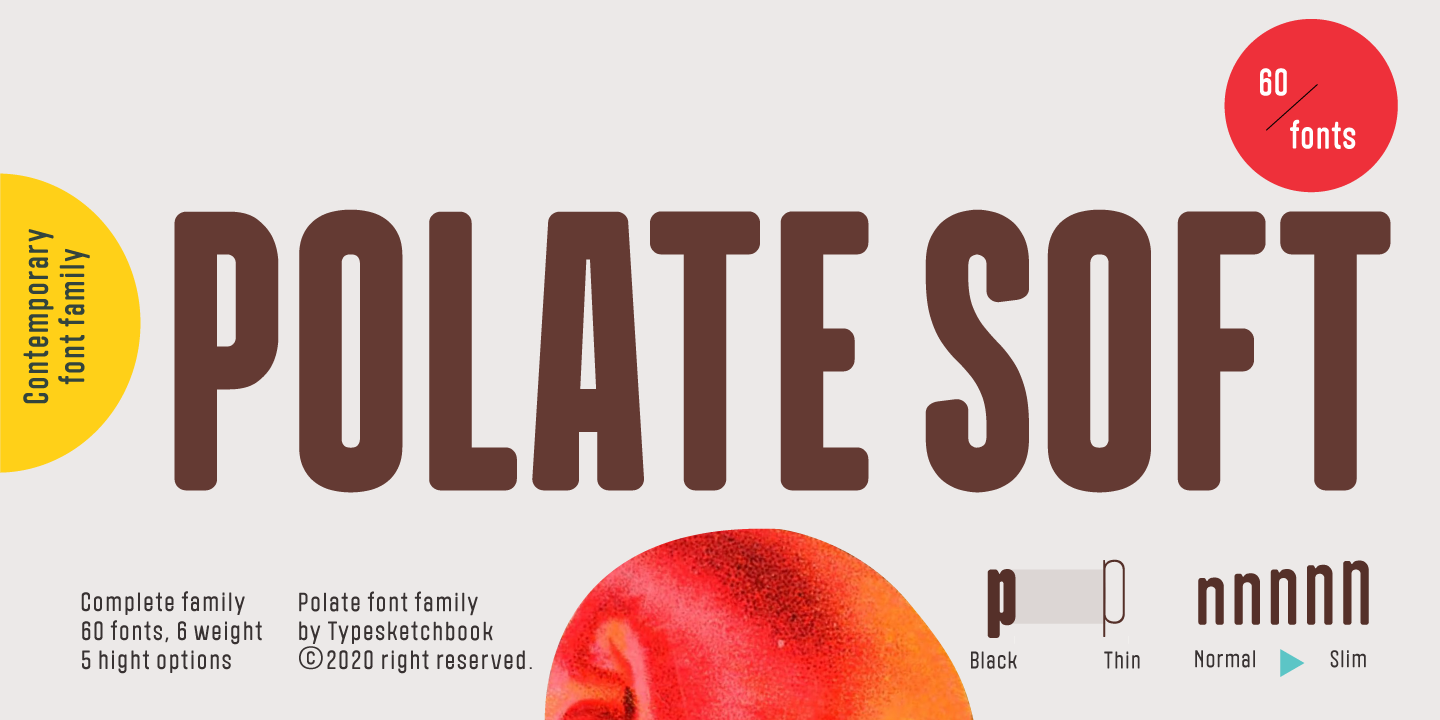
Polate Soft Font is perfect for modern branding projects, website headers, mobile app interfaces, corporate presentations, business cards, magazine layouts, poster designs, social media graphics, digital marketing materials, and any projects that require a clean, professional appearance.
What makes Polate Soft Font exciting is its contemporary soft-edge design that provides exceptional readability while maintaining a sleek, modern aesthetic. This innovative typeface features rounded corners and gentle curves that create a friendly yet professional impression, making it ideal for both corporate communications and creative projects. The font's balanced proportions and optimized spacing ensure crystal-clear legibility across all screen sizes and print formats.
Polate Soft Font family includes comprehensive weight options ranging from thin to black, featuring light, regular, medium, semibold, bold, and extra bold variants. The font family also offers italic versions for each weight, along with extended character sets supporting multiple languages, making it a versatile choice for international projects and multilingual designs.